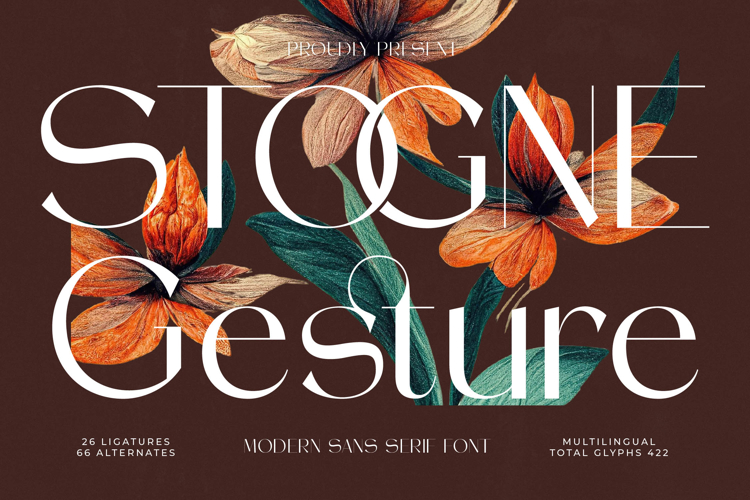
Stogne Gesture - Modern Sans Serif Font
Elevate your design projects with the exquisite charm of Stogne Gesture - Modern Sans Serif Font. This typeface masterfully combines modern sophistication with a timeless allure, featuring high-contrast strokes and elegant curves that command attention. Its distinctive aesthetic is meticulously crafted to imbue any text with a sense of refined artistry and unique personality, setting your creations apart.
Experience unparalleled design flexibility and global reach with Stogne Gesture - Modern Sans Serif Font. Boasting 26 ligatures and 66 alternates, it offers extensive stylistic options for truly customized typography. With its extensive multilingual support, Stogne Gesture - Modern Sans Serif Font adapts seamlessly across global markets, making it incredibly versatile for international projects and diverse audiences.